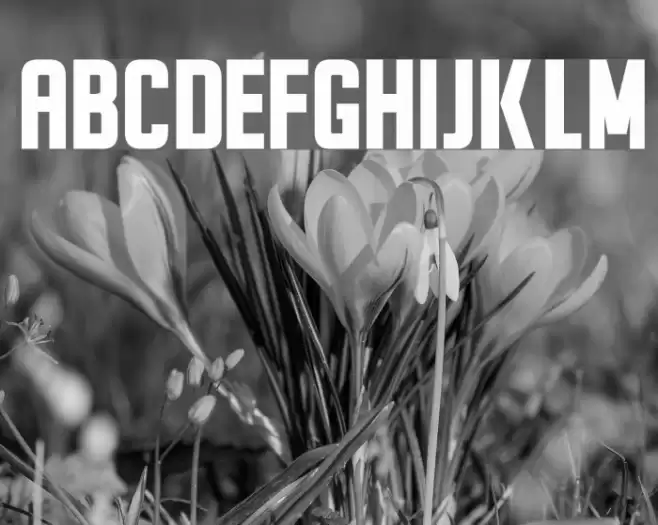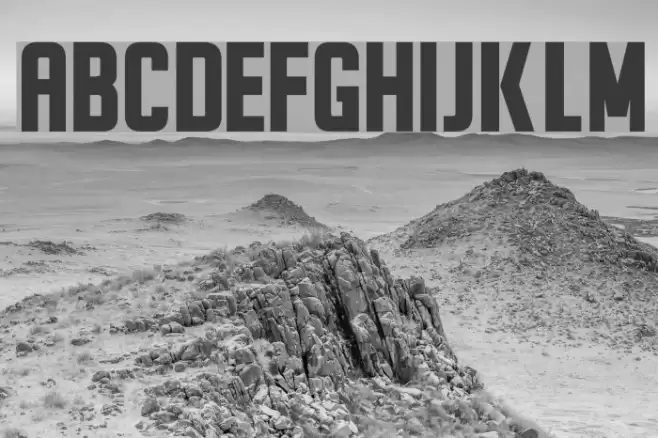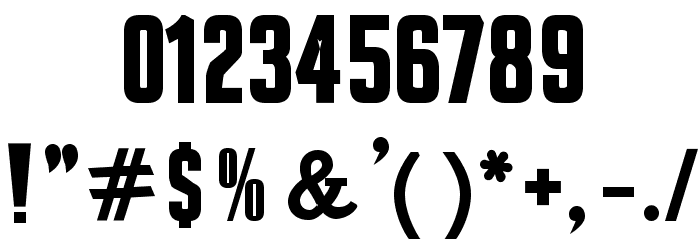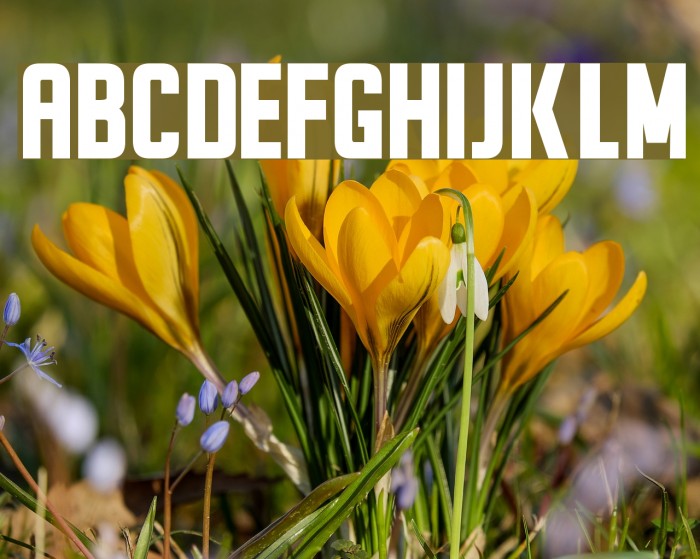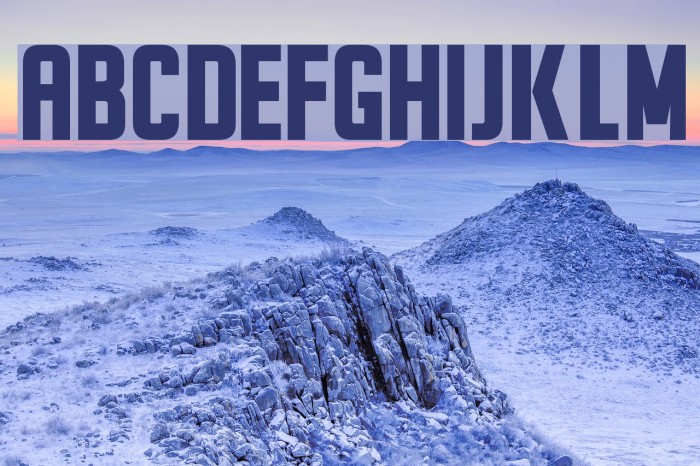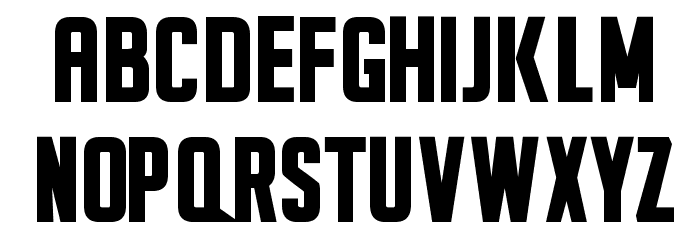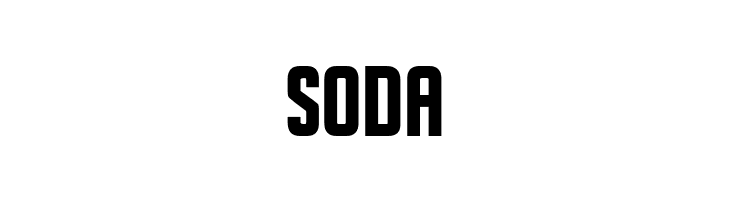
SeilsSans-Bold Font
SeilsSans-Bold Description
This bold, sans-serif typeface features strong, geometric letterforms with a modern aesthetic. The uppercase letters are particularly striking, with a uniform height and width that creates a powerful visual impact. The numerals and special characters maintain this boldness, ensuring consistency across all text elements. The font's clean lines and lack of serifs make it highly legible, even at smaller sizes. Its design is both contemporary and timeless, suitable for a wide range of applications.
A bold, geometric sans-serif typeface with strong, modern letterforms from Uncategorized fonts.
- Proposed Projects: Ideal for branding, advertising, headlines, posters, and any project requiring a bold, modern look.